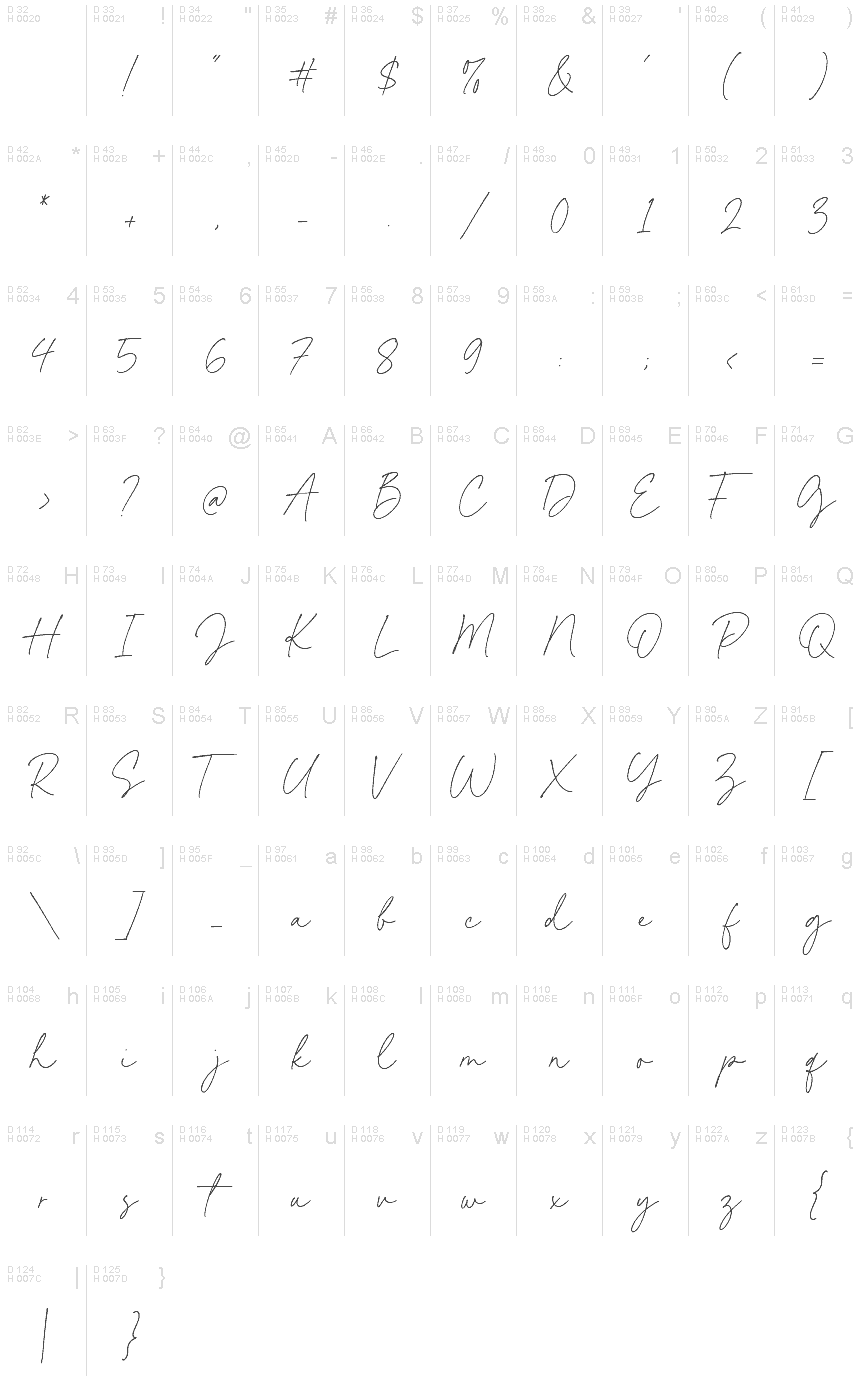
Kimberly Paradise
Kimberly Paradise font by Timur Type is a light handwritten font that blends elegance and modern appeal. Its flowing, expressive style carries a personal touch that translates across various design projects, making it versatile for different audiences.